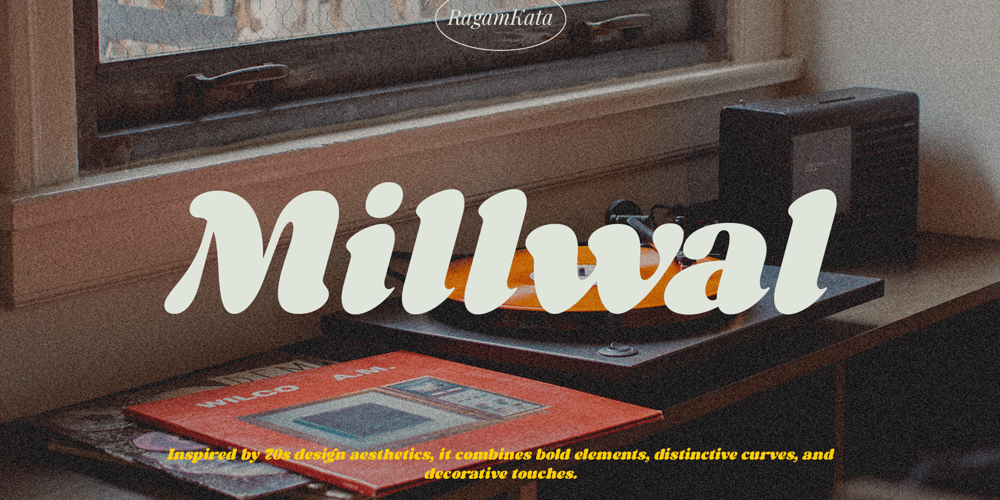
Millwal Font Family was designed by Yogiswhara Dio Prakoso Riadi and published by RagamKata. Millwal contains 1 styles and family package options. Millwal is a vintage serif font.With many alternate features for each letter, Millwal provides flexibility and variety in the appearance of the text. Each letter has a unique alternative, adding a creative and eye-catching touch to your designs. From curvy shapes to artistic details, each character in this font displays a different kind of beauty and authenticity.Features :- Ligatures & Alternates- Letters, numbers, symbols, and punctuation- Multilingual Support